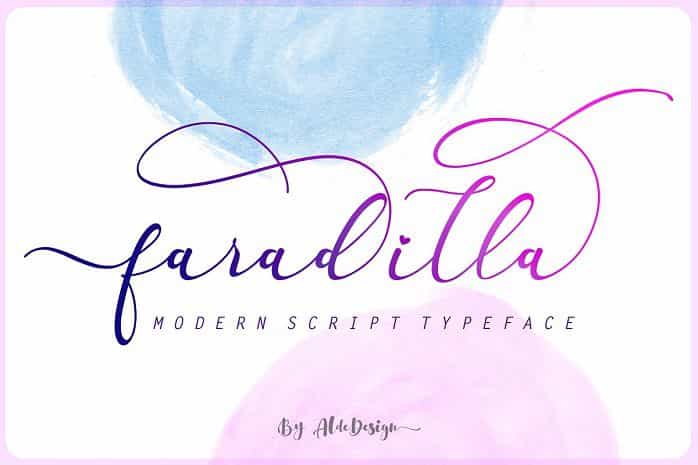
Discover Faradilla Script Font, part of the Calligraphy Handwritten collection—a versatile and unique font perfect for adding a personal touch to your projects. Download it for free and enjoy crafting designs with style, from invitations to social media posts. This font is available exclusively for personal use, giving you the freedom to create without limits. Unlock your creativity with Faradilla Script Font today!
Faradilla Beautiful Script Font is being introduced. The design, development and sharing of the software have been done by Aldedesign. Faradilla – Beautiful Script Font is a fashionable hand-written typeface with the notes of love. This font which has a fluctuating baseline, smooth line and modern one with love depth. Faradilla is a star of love and modernity for your designs or branding, it can be used for many purposes like headings, wedding, invitation, signature, logos, branding t-shirt letterhead signage lable news posters badges etc.